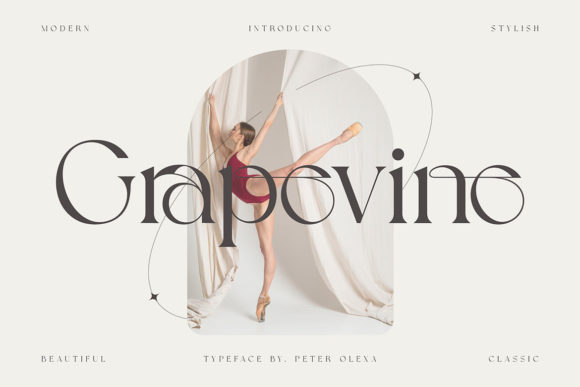
Journey into the realm of typography with Grapevine Font - a font that sparks visual intrigue and leaves an everlasting impression. Step into a world of remarkable designs, where Grapevine Font stands as your trusted companion, transforming your creative visions into tangible realities.
Grapevine Font is crafted with precision and flair, exuding elegance and sophistication in every stroke. It's designed to turn heads and captivate audiences, making it the perfect choice for those seeking to make a statement. Dive into a sea of endless possibilities, where Grapevine Font becomes the muse for your artistic endeavors.
Imagine your brand's logo emblazoned in the bold and striking presence of Grapevine Font, commanding attention and etching itself into the minds of your customers. Or envision your t-shirts adorned with Grapevine Font's vibrant and playful characters, drawing eyes and igniting conversations wherever you go.
With Grapevine Font, your creative products will sing with newfound allure, capturing hearts and imaginations at first glance. Each letter, meticulously crafted, dances across the page, inviting readers to immerse themselves in your enchanting designs.
This font is not just a collection of characters; it's a gateway to a world of boundless creativity. Grapevine Font will ignite your imagination, fueling your artistic passions as you embark on a journey of design and innovation.
Unleash the power of Grapevine Font and witness the transformation of your projects. Watch as they bloom into stunning creations that resonate with your audience, leaving an unforgettable mark on their minds.